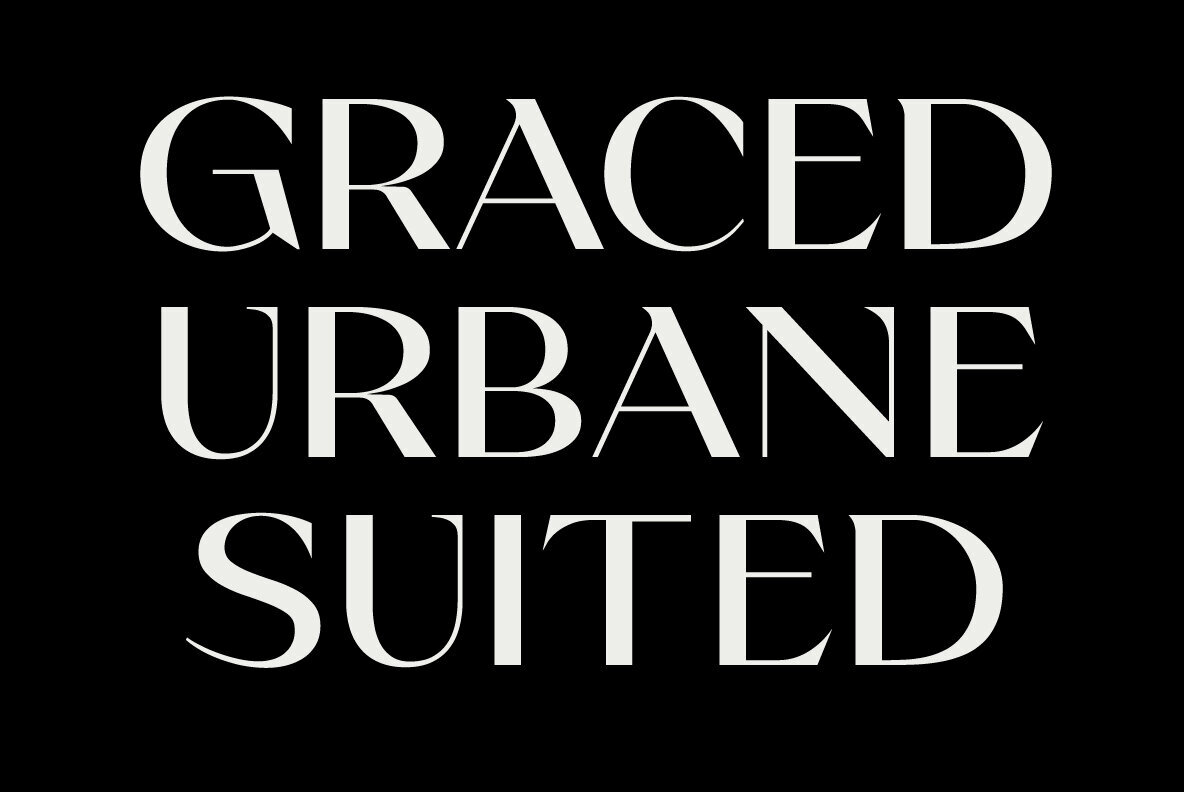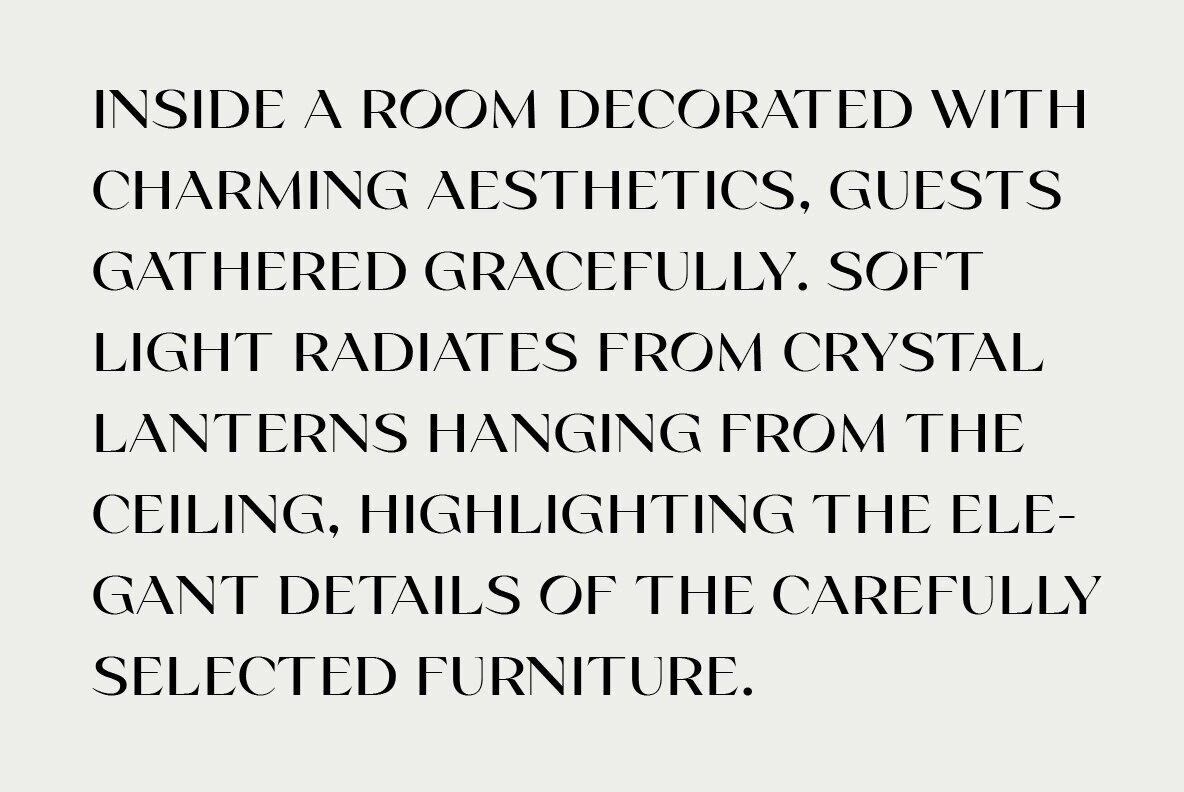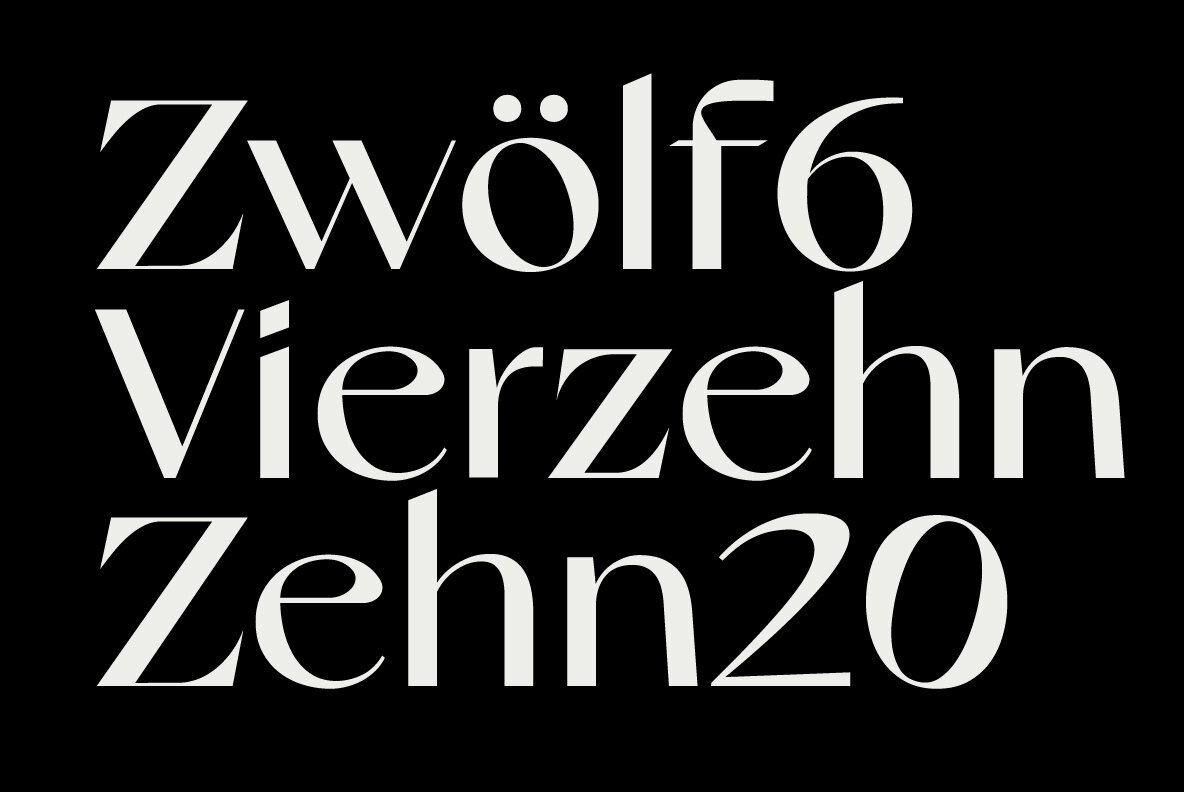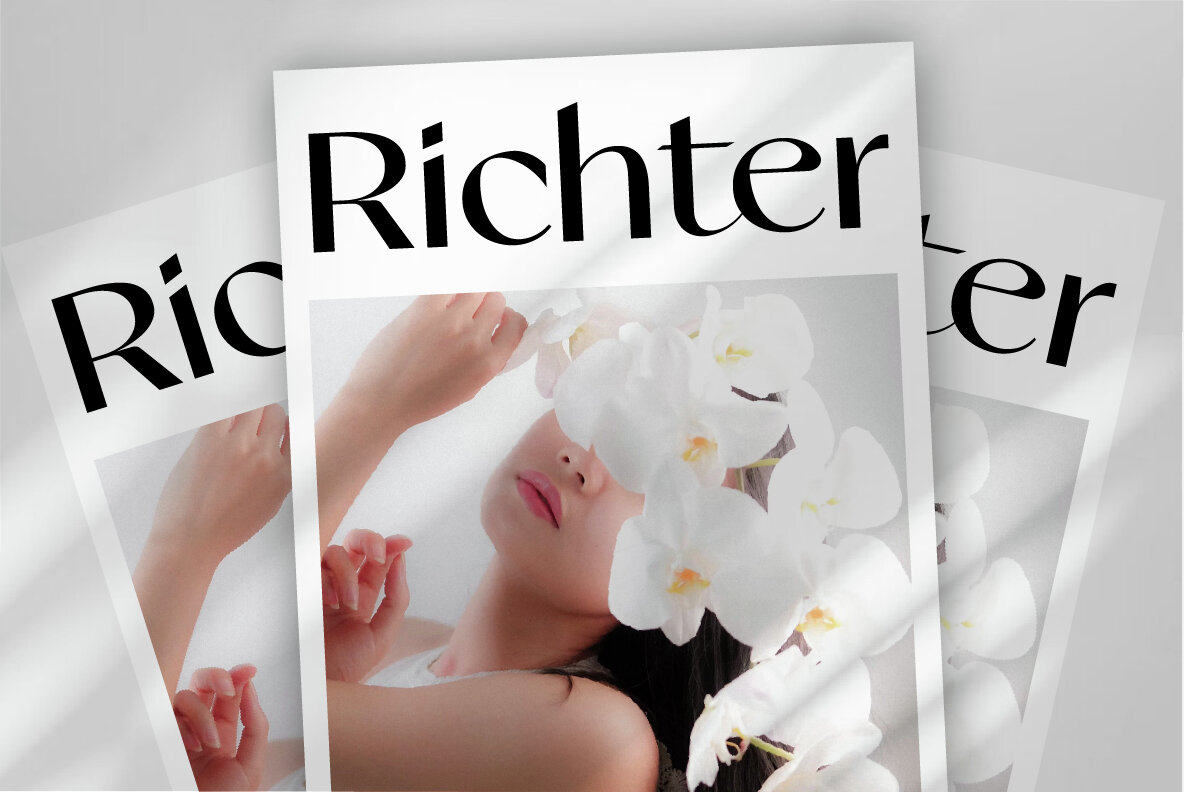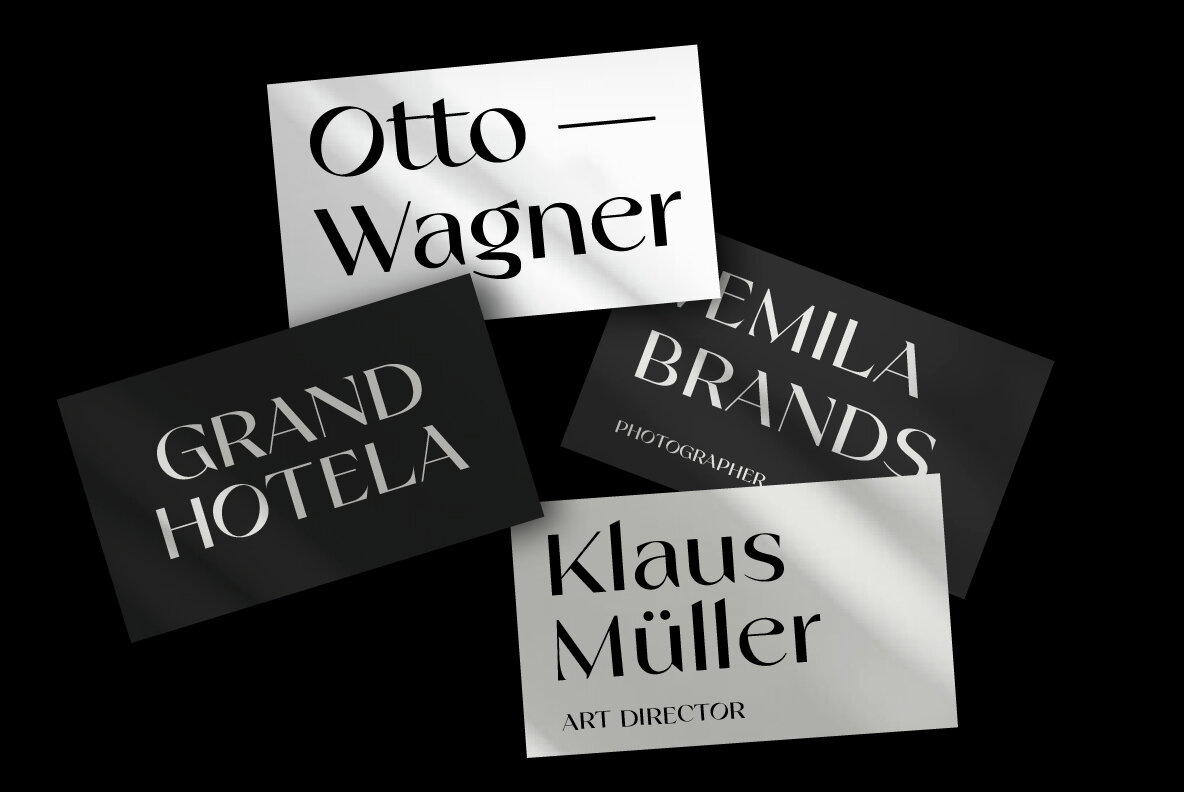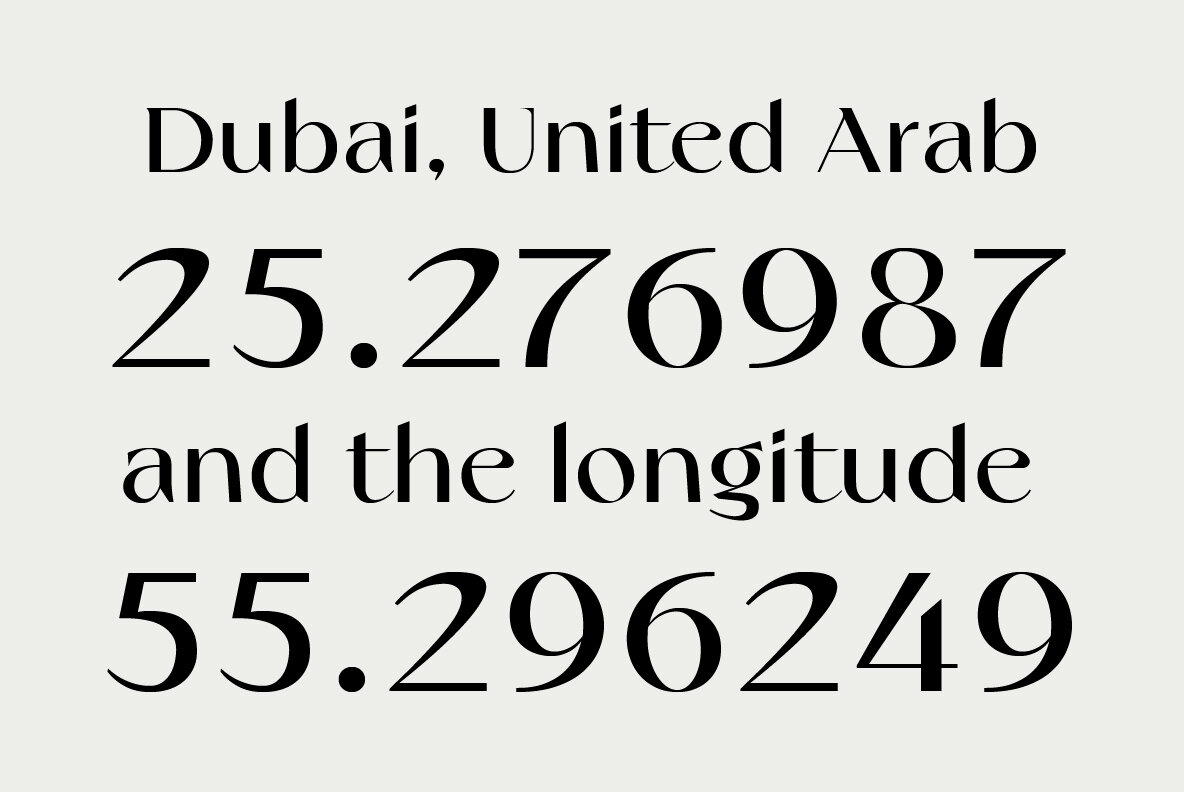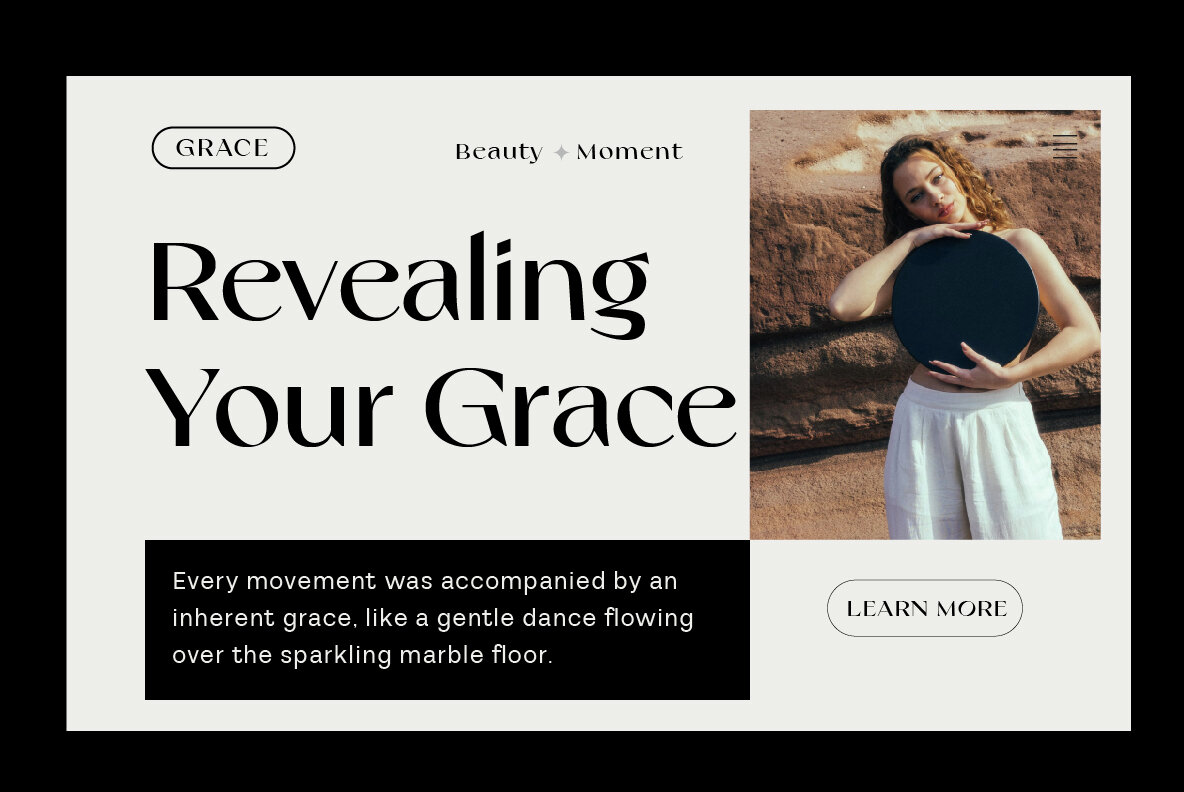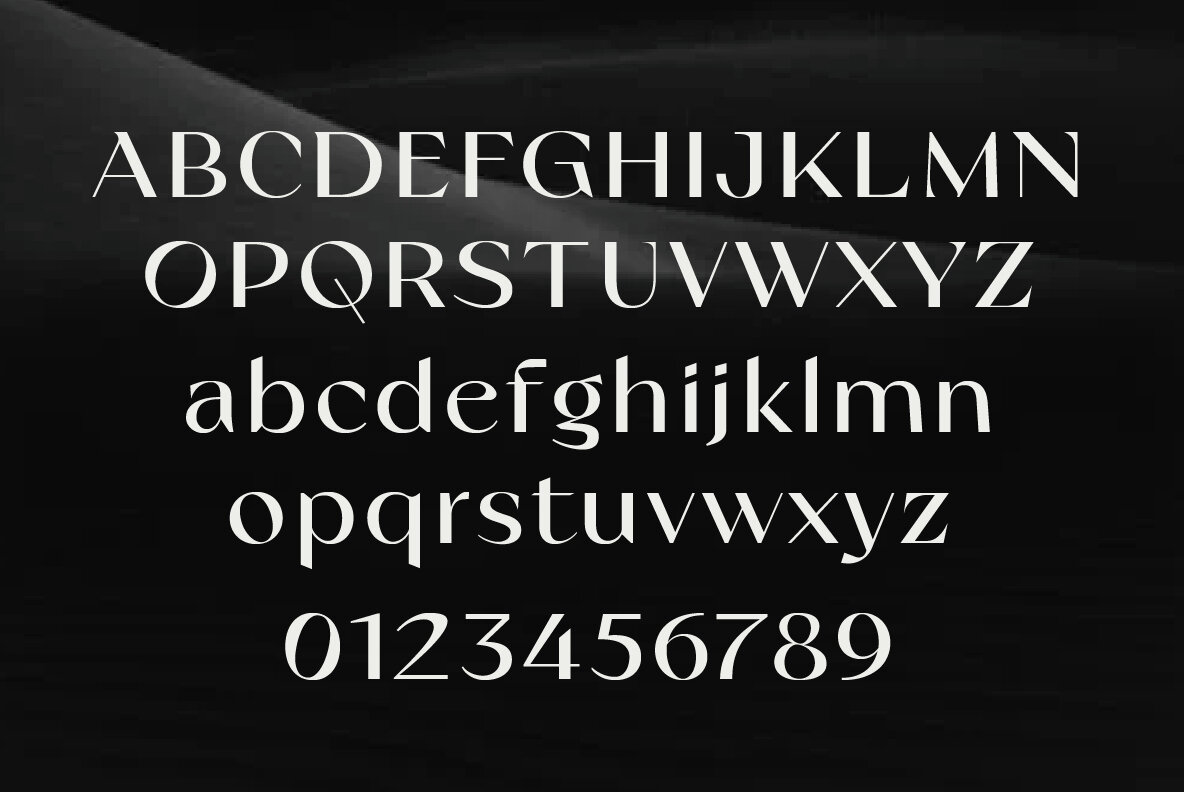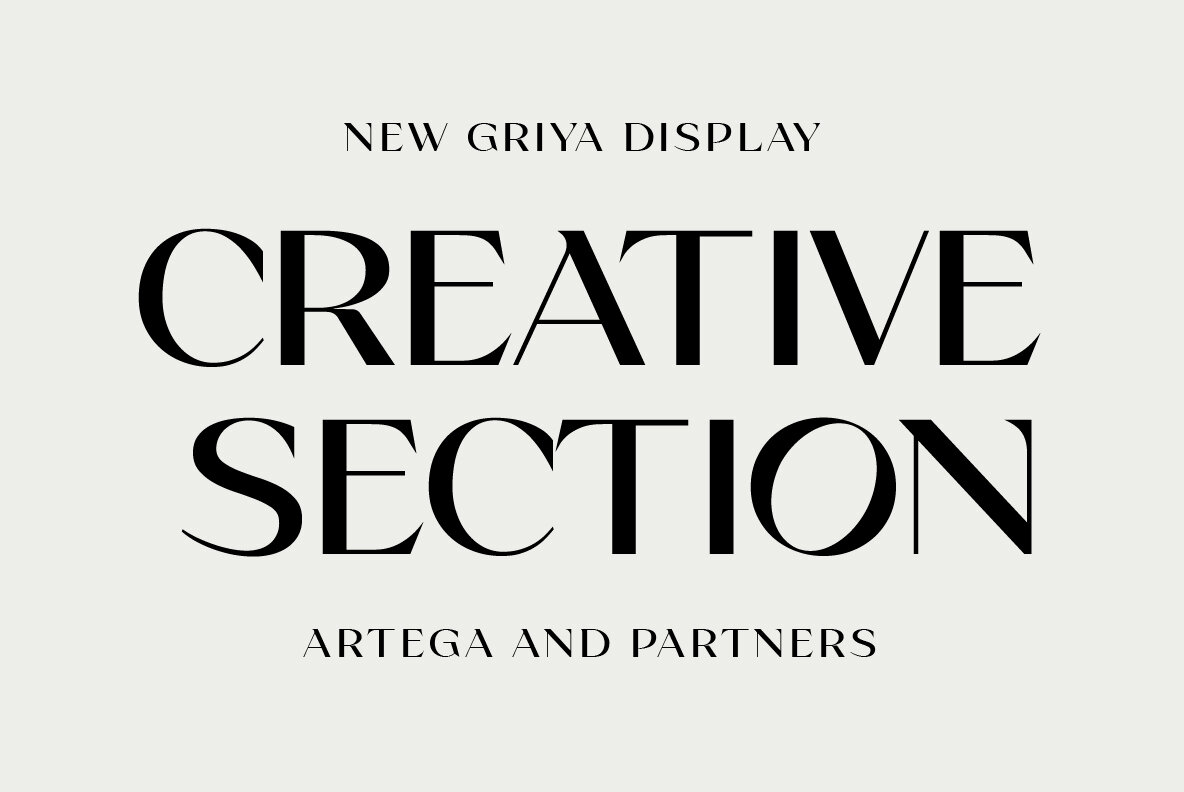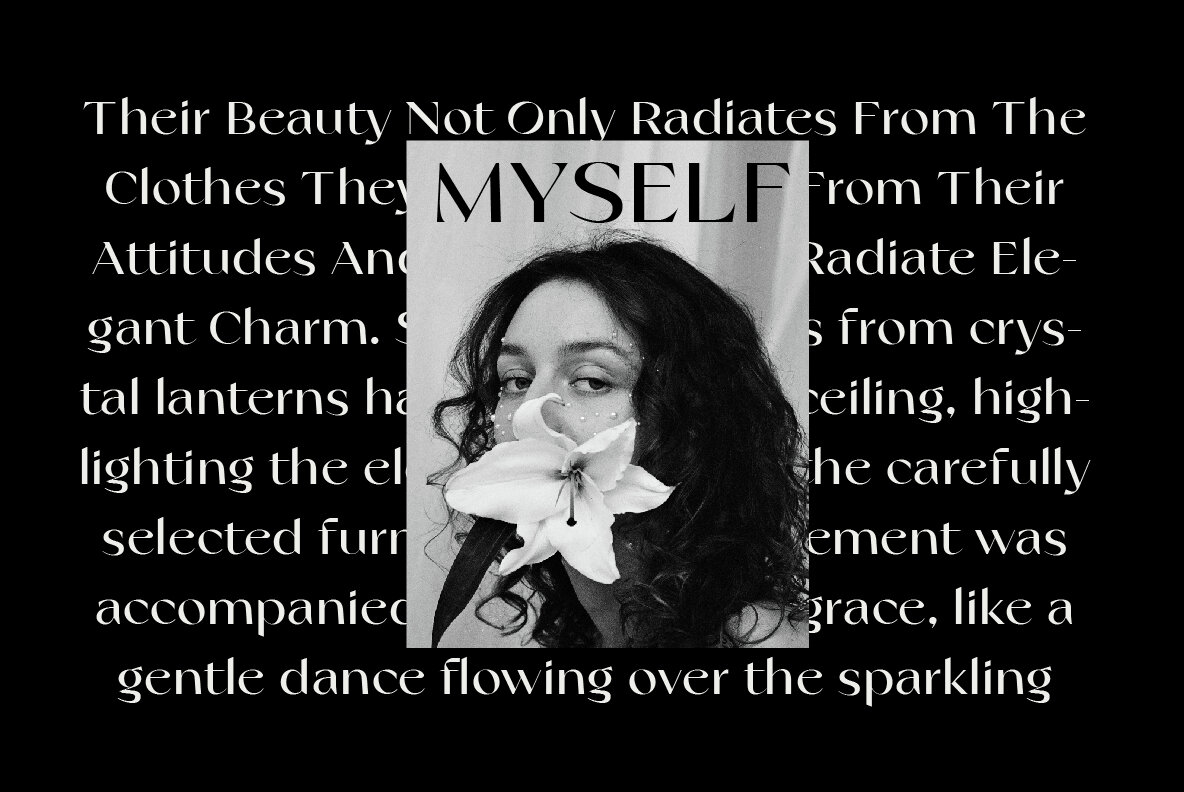
Griya Font
This bold, sans-serif font boasts a geometric and modern design, suitable for impactful headlines and attention-grabbing display use. It presents a minimalist aesthetic with clean, unembellished lines, high contrast in its weight distribution, and a solid, structural form that ensures legibility and an urban, contemporary feel.